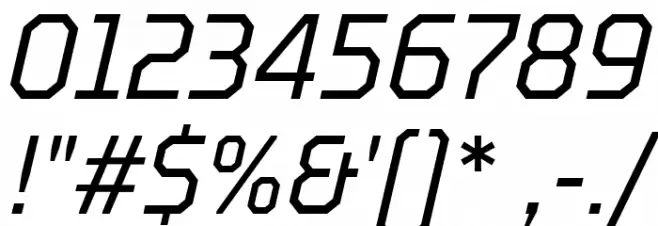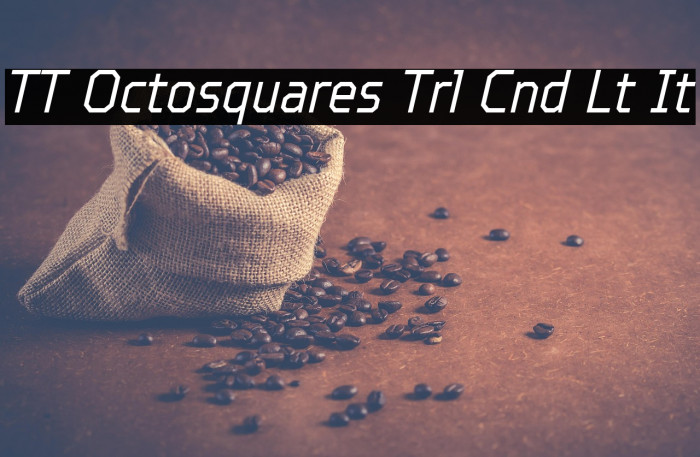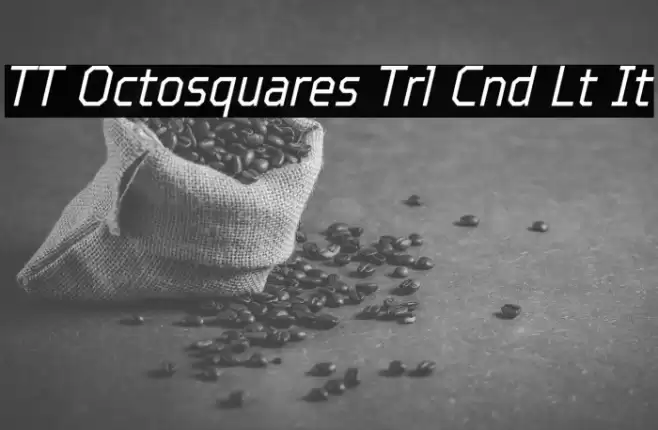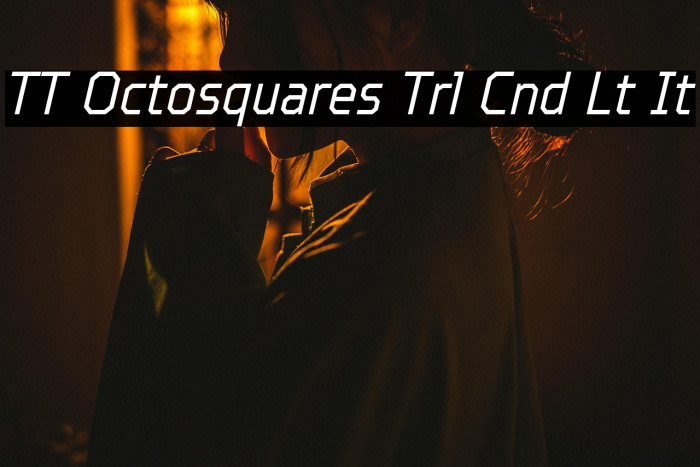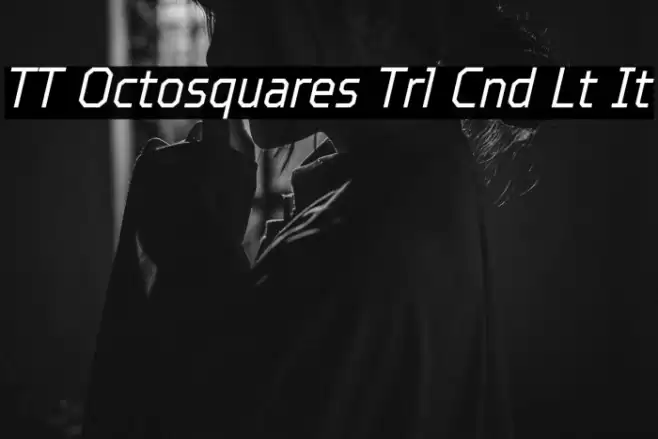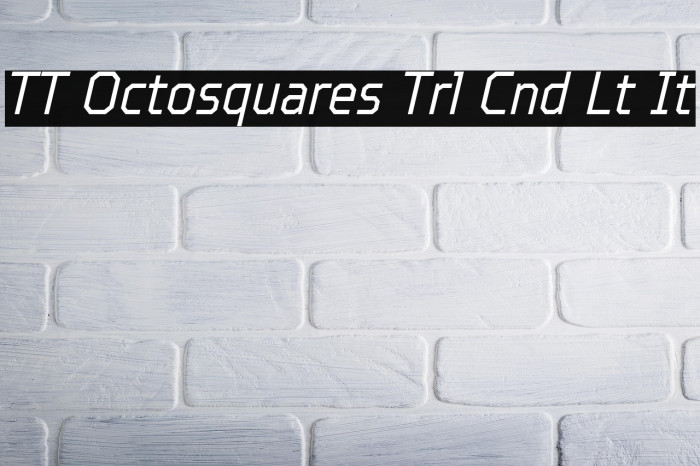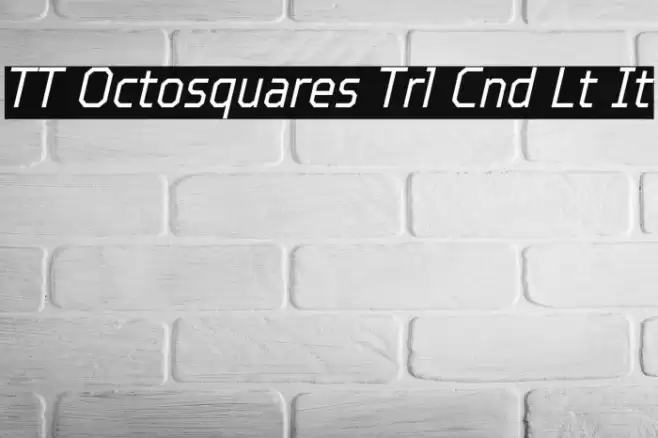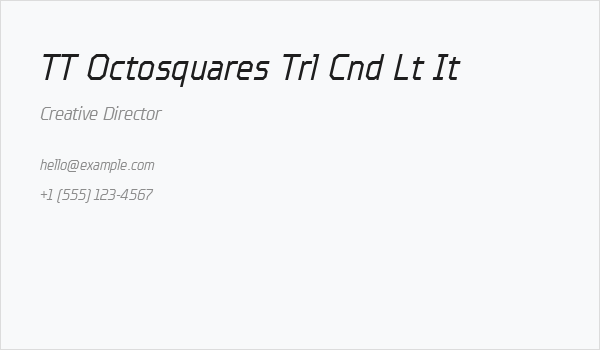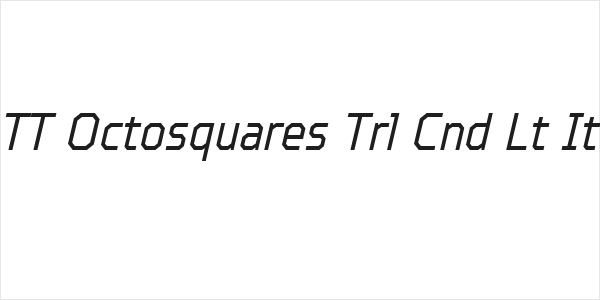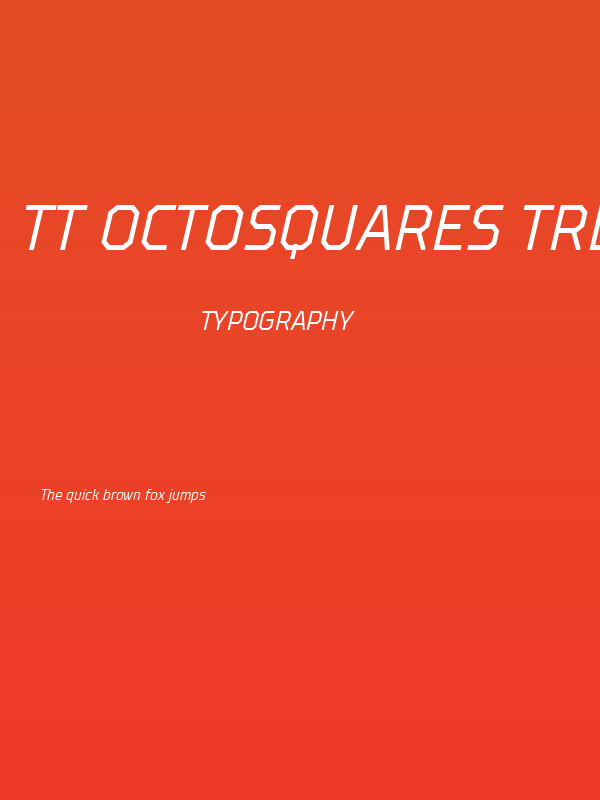
TT Octosquares Trl Cnd Lt It Font
TT Octosquares Trl Cnd Lt It Description
This font features a modern, geometric style with a condensed width, characterized by its angular and sharp edges. The italicized form adds a dynamic and forward-leaning appearance, enhancing its contemporary feel. The characters are uniformly structured, maintaining a consistent line weight that contributes to a clean and streamlined look. The spacing between characters is tight, which complements its condensed nature, making it suitable for compact text arrangements. The font's design is both functional and stylish, making it versatile for various applications.
| Use Case | Headlines, Logos, Branding |
| Proposed Projects | Ideal for technology branding, modern advertising, product packaging, and editorial headlines. |